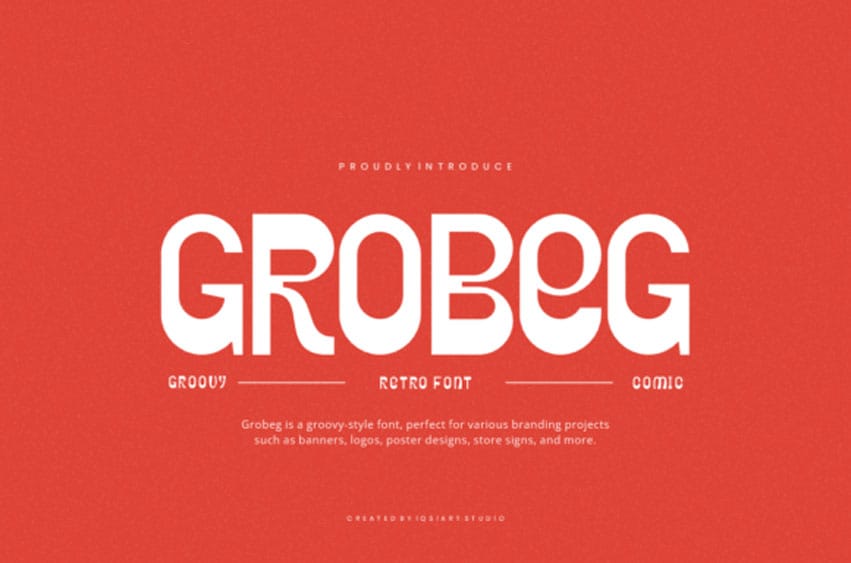
Grobeg Font Transport your designs back to the psychedelic era with Grobeg font, a bold, groovy display face that radiates retro energy.
Featuring liquid-like curves and heavy, bottom-weighted letterforms, the Grobeg typeface is a masterclass in vintage aesthetics with a modern, clean execution. It is the ultimate choice for high-impact headlines, festival posters, and funky apparel branding.
The Grobeg font pairs exceptionally well with grainy textures and vibrant, warm color palettes to lean into that 1970s nostalgia. Use it for album covers that need a rhythmic flow or for boutique shop signage that demands attention.
Because of its unique silhouette, the Grobeg typeface works best when given plenty of breathing room, allowing its expressive terminals and “wavy” personality to shine. It is the perfect bridge between classic disco vibes and contemporary streetwear design.